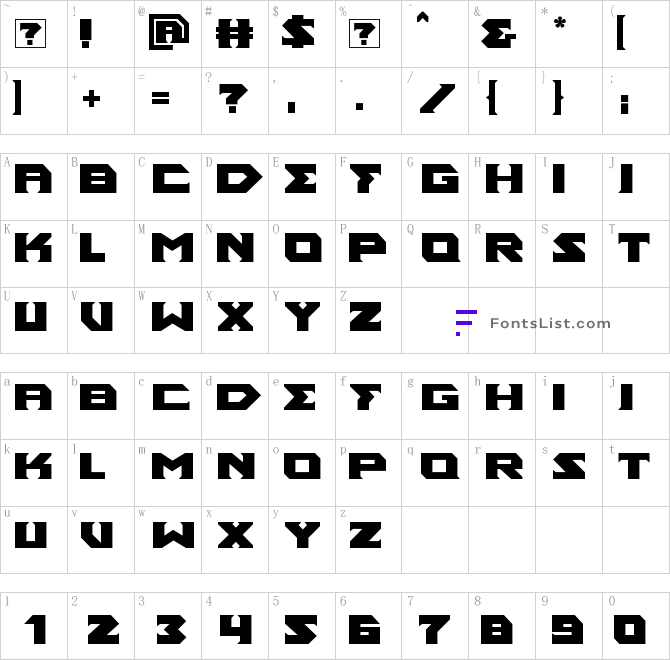
- Font Name:Ancient God
Ancient-God-Bold.ttf is a very beautiful artistic font, Ancient-God-Bold.ttf is widely used in the design and printing of various books and pictures,Ancient-God-Bold.ttf has a strong visual impact,Ancient-God-Bold.ttf is a commonly used font in newspapers, magazines and books, and is used in posters, e-commerce Poster design, store design, logo design, font design and other fields.Ancient-God-Bold.